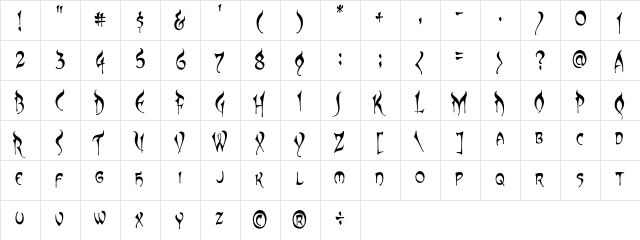
CCElsewhere Regular
Design Context for CCElsewhere Typeface
CCElsewhere is a composed and adaptable typeface that performs quietly and consistently across a wide range of design contexts.